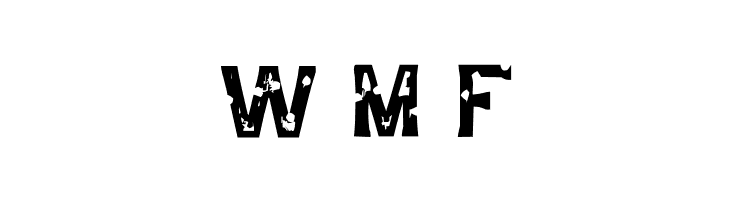
A bold, distressed font with a rugged, vintage texture.
A bold, geometric font with angular cuts, perfect for modern and impactful designs.
A bold, italic, and angular font with a dynamic and energetic style.
A bold, decorative font with ornate swirls and high contrast.
A bold, decorative font with intricate swirls and high contrast, perfect for artistic projects.
An elegant, flowing script font with ornate uppercase and graceful lowercase letters.
An elegant script font with intricate swashes and flowing letterforms.
A dynamic and flowing script font with elegant, cursive letterforms.
A sleek, modern font with thin lines and a minimalist design.
A bold, geometric font with a futuristic and industrial style.
A futuristic, geometric font with angular and octagonal shapes.
A whimsical script font with flowing, interconnected letters and playful loops.
A bold, cursive font with elegant, flowing lines and decorative flourishes.
A bold, playful font with a hand-drawn, friendly appearance.
A geometric, angular font with a futuristic and bold design.
A playful, bold font with whimsical, cartoon-like characters.
A bold, blackletter font with sharp, angular lines and high contrast.
A jagged, edgy font with irregular, sharp strokes resembling torn paper.
An elegant, cursive font with flowing, ornate characters.
A bold, decorative font with sharp serifs and dynamic detailing.
A bold, edgy font with angular lines and a dynamic presence.
A playful, casual handwritten font with smooth, flowing lines.
A bold, distressed font with a rugged, vintage aesthetic.
A sophisticated, elegant handwritten font with fluid cursive letterforms.
A bold, gothic-style font with sharp, angular lines and an inline design.
A playful, handwritten font with dynamic strokes and a casual style.
A whimsical, decorative outline font with a playful, hand-drawn style.